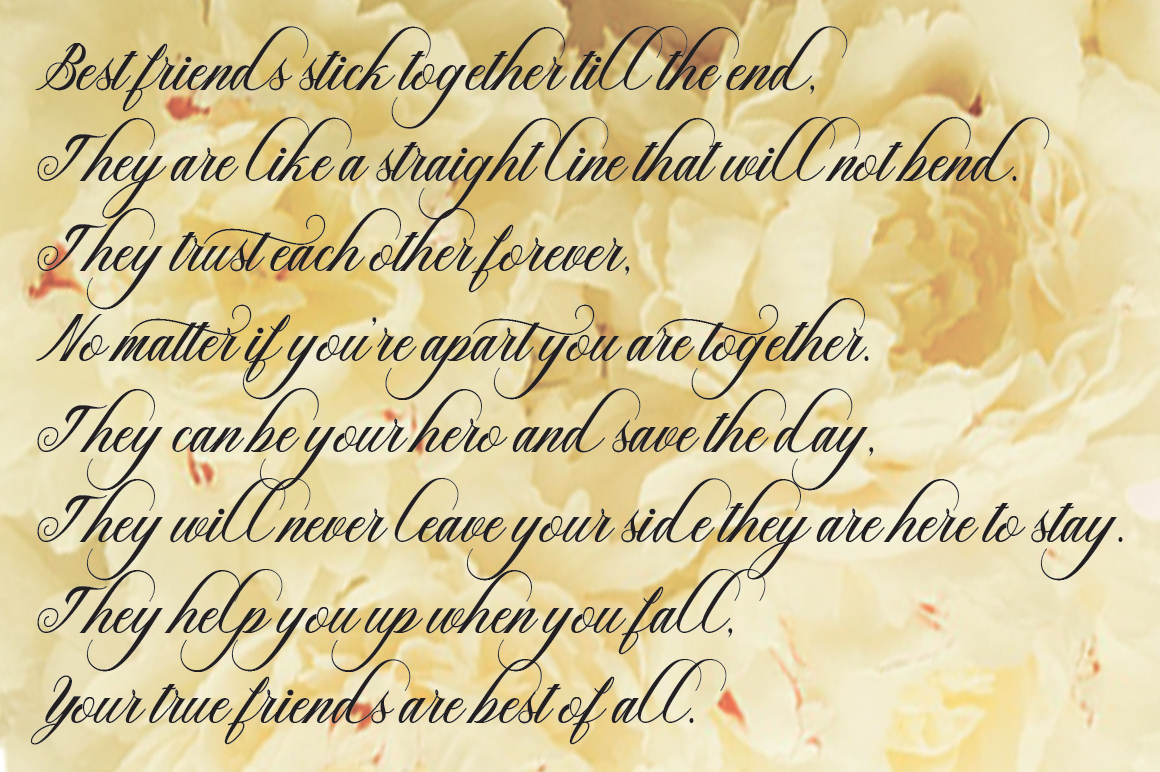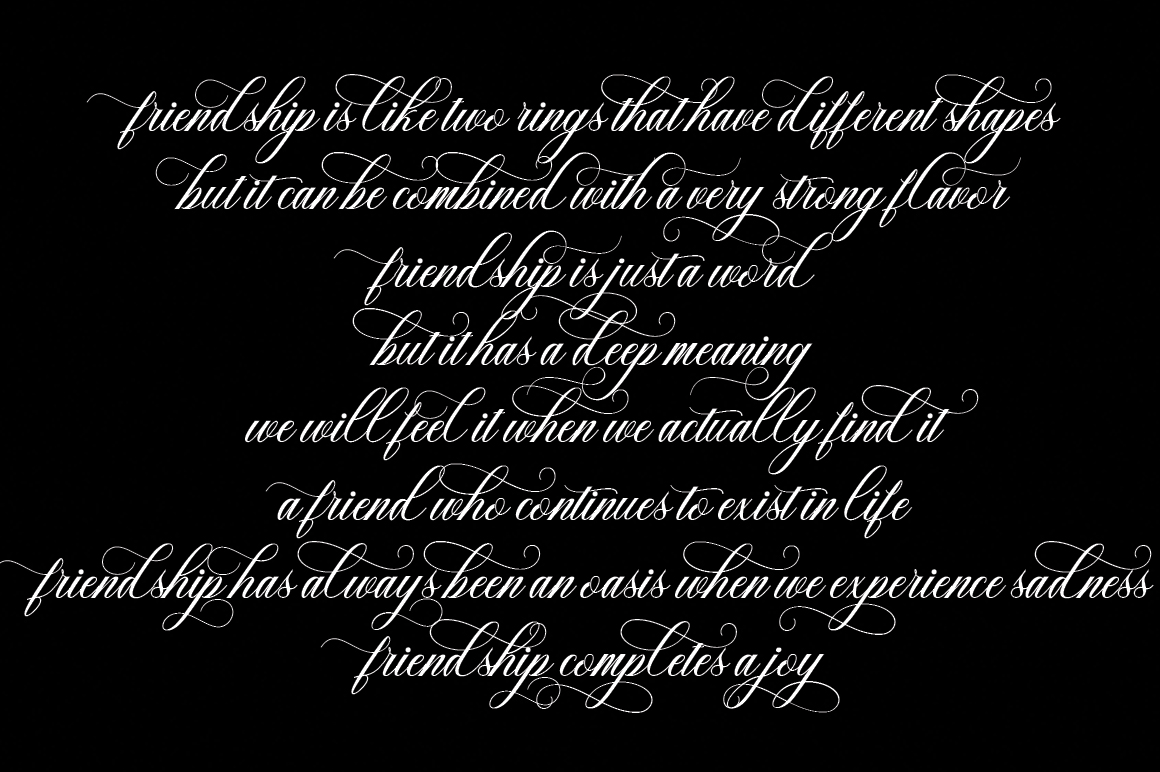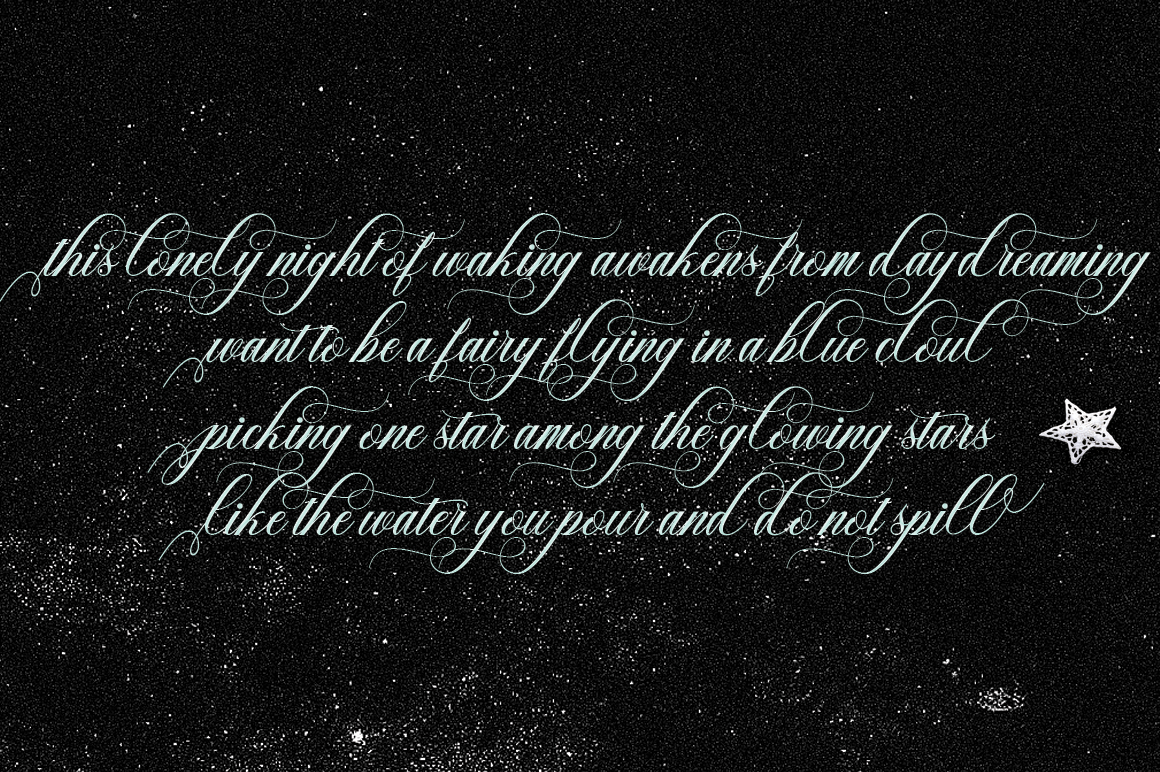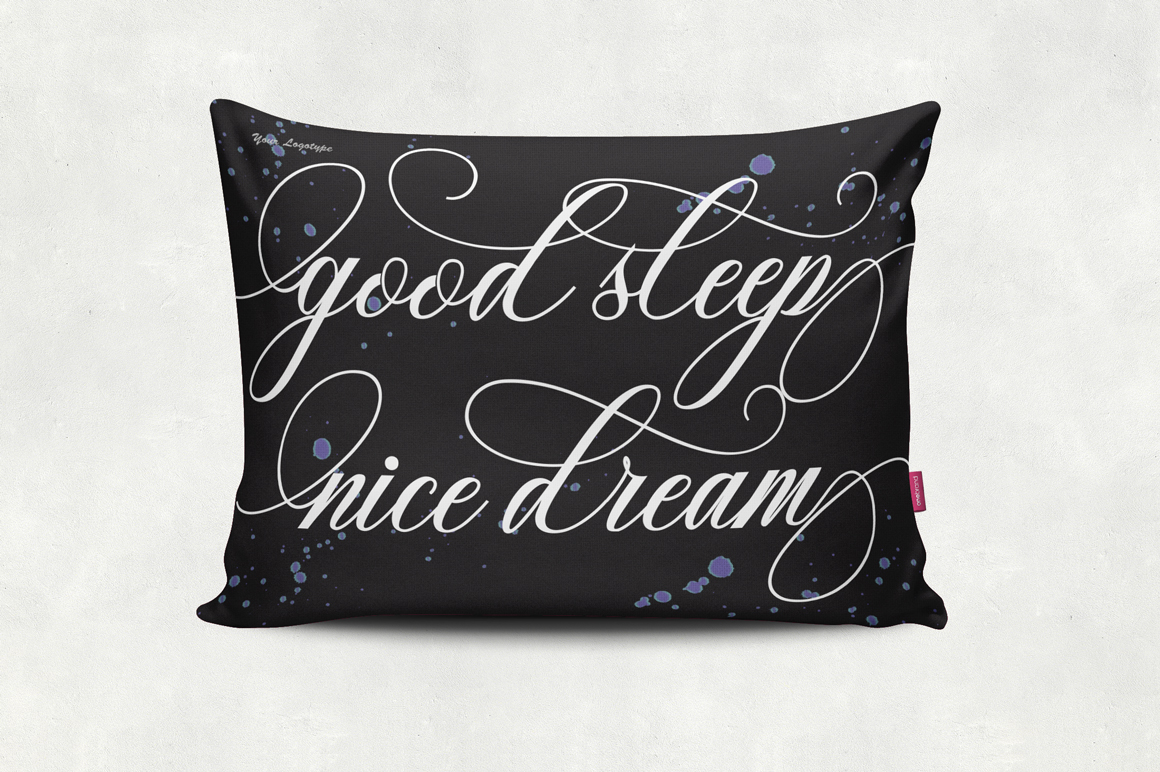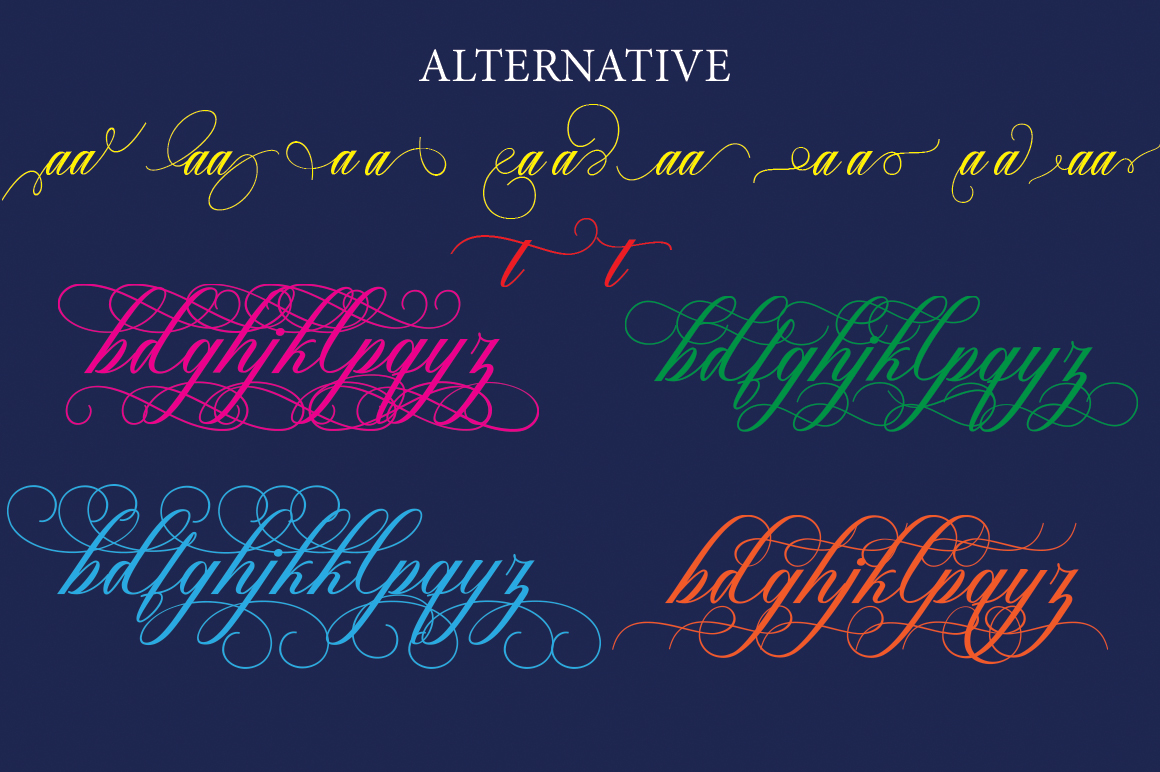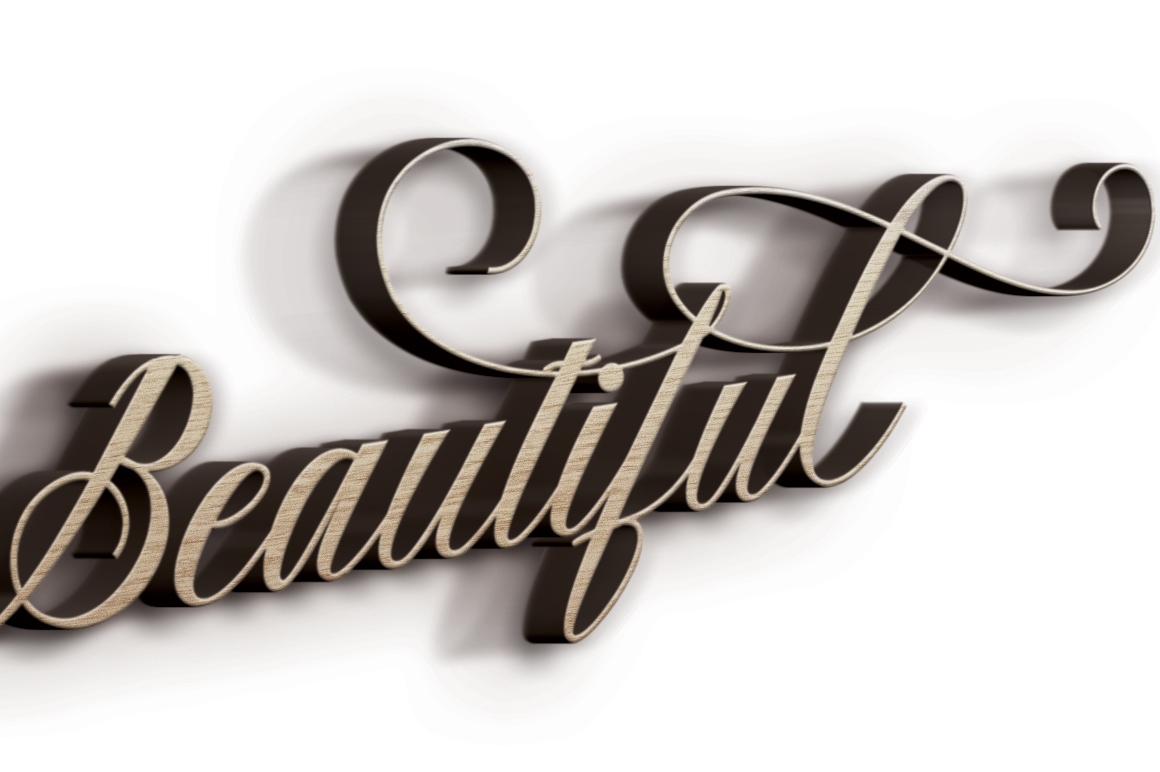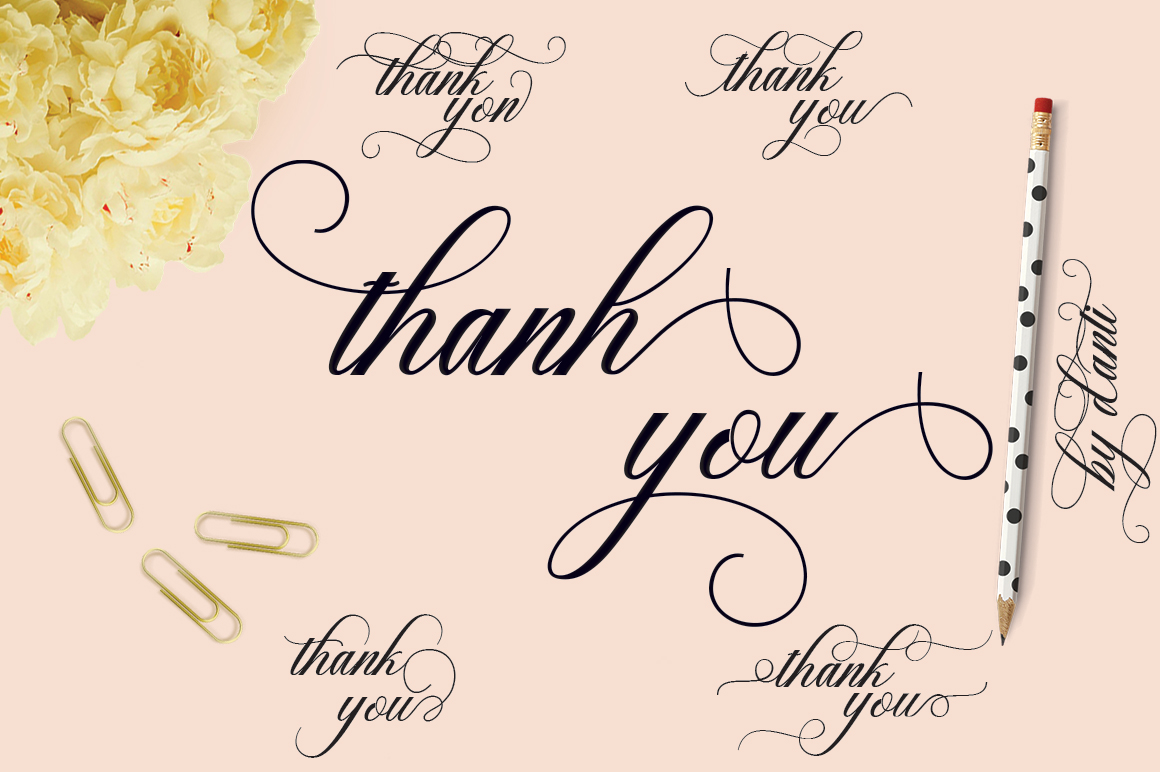
HomeScript FontsSigarillos Font Script Fonts Sigarillos Font FacebookXPinterestWhatsApp Sigarillos Font Poster 2 Sigarillos Font Poster 3 Sigarillos Font Poster 4 Sigarillos Font Poster 5 Sigarillos Font Poster 6 Sigarillos Font Poster 7 Sigarillos Font Poster 8 About Sigarillos Font Sigarillos is a fine, elegant calligraphy script. This font comes packed with over 470 stylish characters. DOWNLOAD NOW People also explored Jolly Candy Font Cactusy Doodle Font Black Stoyem Font Anttalla Font Vintage Cars Font Pinky Font Something Font Hello Saturday Font Hey Girl Font 338 0 TagsSigarillos Font Previous articleAcrobad FontNext articleBlodeyn Font LEAVE A REPLY Cancel reply Comment: Please enter your comment! Name:* Please enter your name here Email:* You have entered an incorrect email address! Please enter your email address here Website: Save my name, email, and website in this browser for the next time I comment. Personal Use Free BD Alm Personal Use Free Read more about this font Pasile Personal Use Free Read more about this font The Lima Personal Use Free Read more about this font The Shocker Personal Use Free Read more about this font BLOG 5 Fonts That Will Dominate Design Trends in 2026 5 Fonts for 2026 That Will Dominate Design Trends Typography plays a critical role in visual communication, and as we look ahead to 2026, it’s... Exploring Font Trends How to Install and Use Fonts on Windows, macOS, and Web Projects Where to Buy American Fonts Online in 2024